35 Best Tattoo Handwriting Fonts
A majority of graphic designers opt for tattoo lettering fonts. They offer an arty hand-drawn appearance to their projects. This article points out cool tattoo fonts that any designer can use to reap the benefits.
Tattoo fonts have elegant, decorative though inconsistent designs. Thereby, they give your designs a custom-made outlook.
Mind you, tattoo handwriting fonts can be used for print and digital designs. They are excellent for social media posts, flyers, and personal projects such as thank-you notes.
By large, your designs will get an authentic touch because they will appear handwritten. Stay on the page, please! We have compiled 35 of the best tattoo fonts for you.
1. Rawuh- Modern Tattoo Font
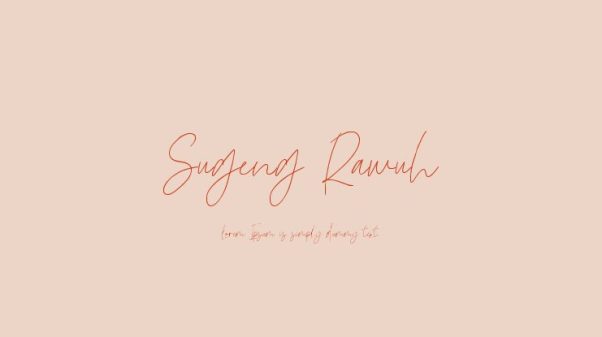
This is an up-to-date font that uses tattoo lettering. The font inculcates every aspect required to design modern headings and titles that appear urban. It has both lowercase and uppercase letters and applies to many languages.
2. Aihet Script- Blackletter Tattoo Font
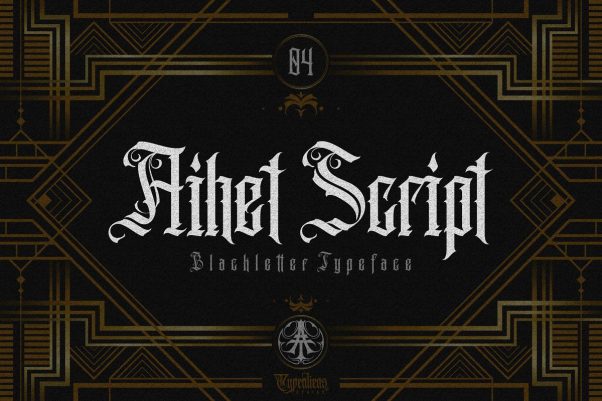
Blackletter lettering design is one of the most standard tattoo fonts. It has a blackletter typeface design and an ideal appearance for tattoo art-style projects. Designers prefer it when creating old-school badges and labels. Remarkably, this font has many ligatures and hence provides a wide range of alternatives.
3. Rools Sling
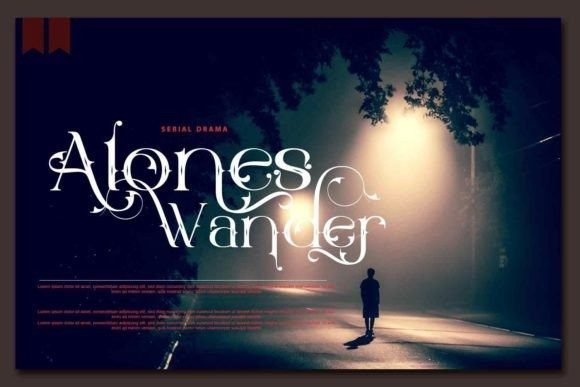
Rools Sling is a creative tattoo font that embeds a stylish feel and appearance. Consequently, it is a fantastic ingredient to your designs. It comes with letters that have unique decorative designs and curves. Nonetheless, it has a good number of alternates.
4. Hewina
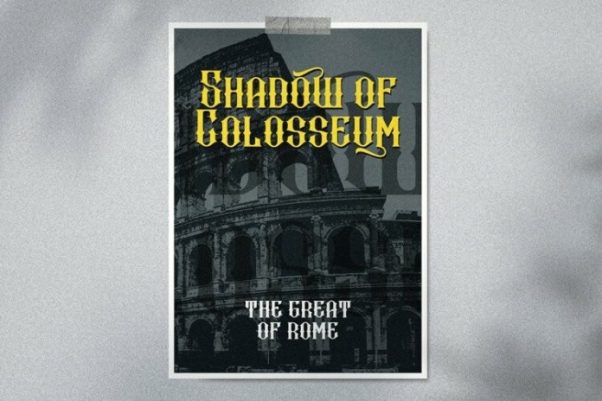
Hewina is an antique la tattoo lettering with Victorian-style letter design elements. Hevina is an excellent font for creating vintage and retro-themed designs. You can use of for making product labels, tattoos, and adverts, to mention a few.
5. Battom Glory
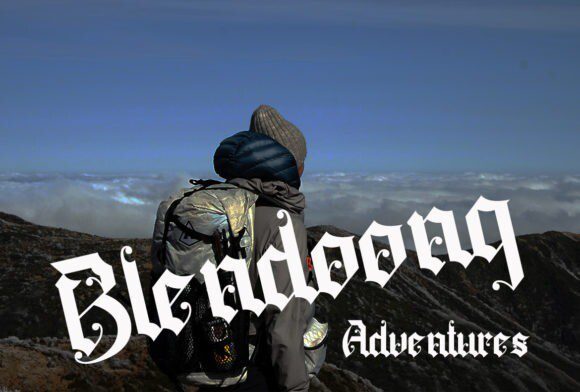
Battom Glory is a free typeface. It is inspired by the Chicano street art and way of life to provide a bold, one-of-a-kind aesthetic. This font is a good choice for designing tattoos and prints media such as signage, t-shirt branding, headlines, posters, etc. It has a five-star rating and ranks globally as one of the best tattoo lettering fonts.
6. Puerto
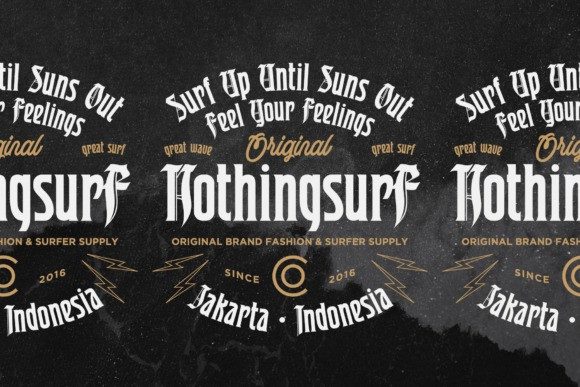
Are you looking for a fun and exciting tattoo font? Puerto is the best solution. This is an elegant and beautiful typeface. Notably, you can use it for numerous purposes, such as; brochures, posters, logos, and other product promotion.
7. Tattoo God
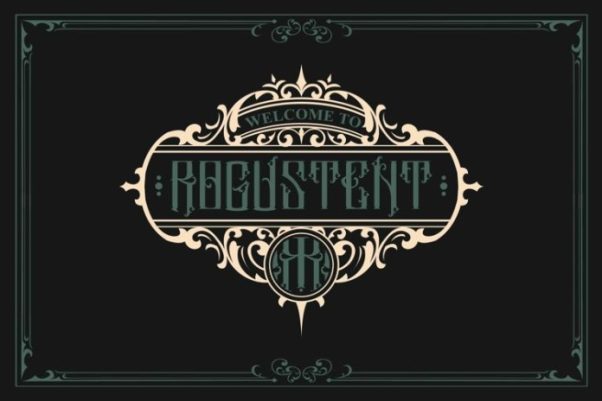
Tattoo God is free and the best fit for personal projects. This script letter tattoo design has a feminine tinge owing to its beautiful look. You can use it to make product packages, labels, and tattoos, especially when targeting a feminine audience.
8. Fasigeko
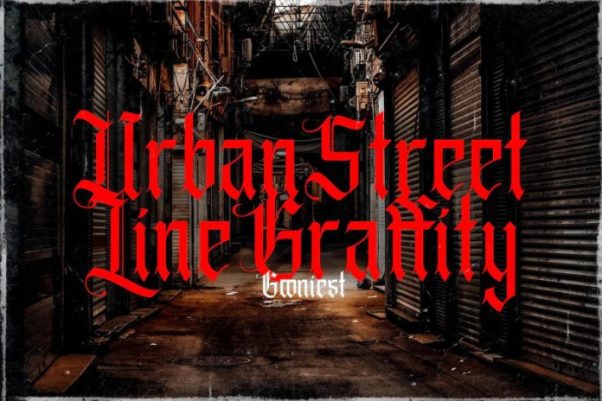
This is among the boldest and most simple tattoo lettering font designs. Utilize it to stay ahead of the park by portraying creativity. It has multilingual support, ligatures, a smorgasbord, and alternates, among other exciting aspects.
9. Acuentre
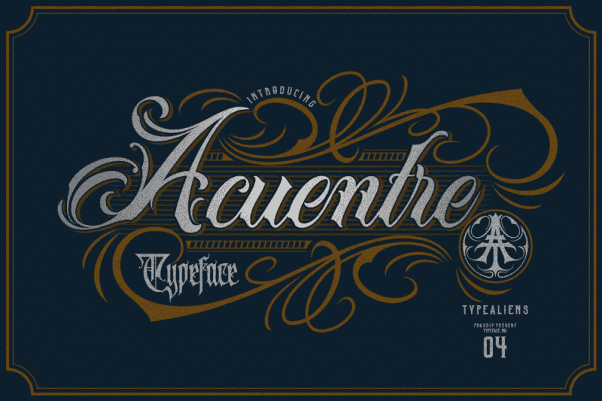
This is a blessed tattoo font, which stylishly provides a classic vintage outlook. Accenture is an excellent option for vintage Victorian-era designs and tattoo projects. This font style has stylistic characters derived from ornaments and ligatures.
10. Starella Font
As the name indicates, this is a stunning tattoo script font. Imagine! Each letter is decorated in sparkling diamonds. This font has a regular version with a package including many symbols, alphabets, and numbers. More so, it can be used for almost all Latin-European dialects.
11. Liberok
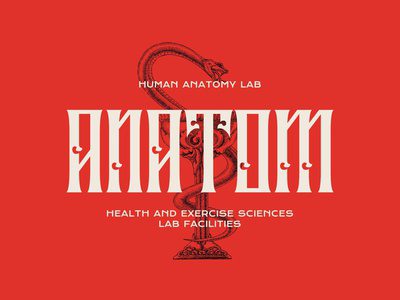
Liberok is a blackletter tattoo font. Are you seeking to create posters with bold and captivating titles? Then you need this tattoo font in your toolset. Liberok flaunts clean-cut tattoo-style lettering. This font is apt for creating bold banners, flyers, and signage titles.
12. Gatterys
This blackletter-style tattoo font has various handcrafted lettering formats. This font is handy in adding a personalized touch to your design projects. Gatterys is suitable for designing signage, labeling projects, badges, and tattooing.
13. Fearless
Fearless is an elegant tribal tattoo font that can be used to design elegant logos, headings, and titles. Designers use it to craft signage for beauty parlors, barbershops, salons, and tattoos. This font has many characters, which makes its use flexible.
14. Chicano
Many graphics designers love Chicano. This design draws inspiration from vintage tattoo designs. Its prominent elements include elegant waves and curves that make it good-looking. Its lowercase letters have swashes and alternates. Uppercase letters also have many ligatures. You can apply it in many projects ranging from digital to print media. You will love it!
35. Gibrael
Gibrael is a tattoo handwriting font with an arty appeal. This font goes well with creating logos, business cards, and personal projects. You can create personalized designs because the font has over 600 glyphs and substituting characters.
Summary
The collection expounded above features the most striking tattoo fonts with various decorative styles and designs. The list will help you decide when choosing the best font. These tattoo lettering typographies can be used for posters, real tattoos, greeting cards, and advertisements. We got you!